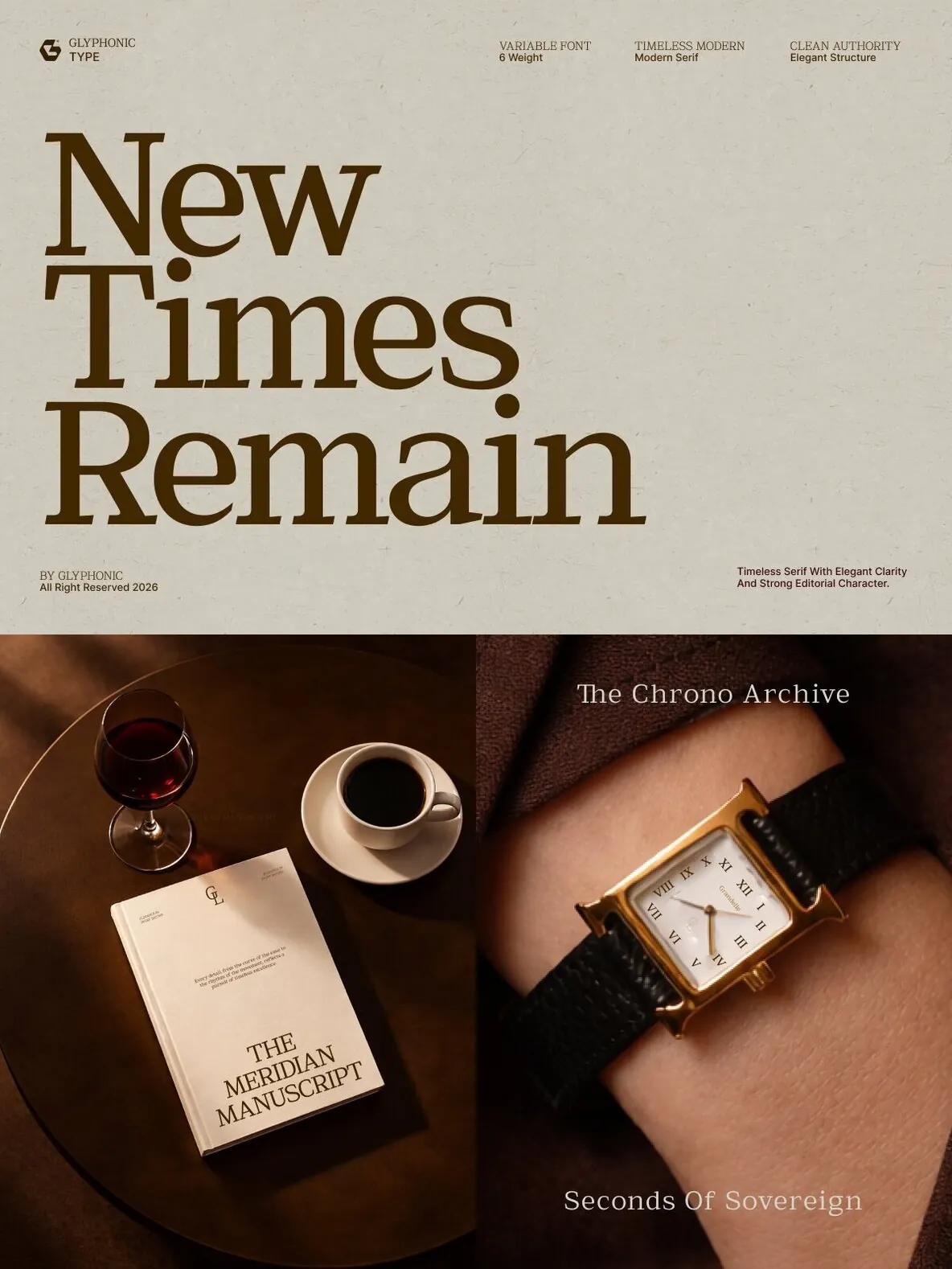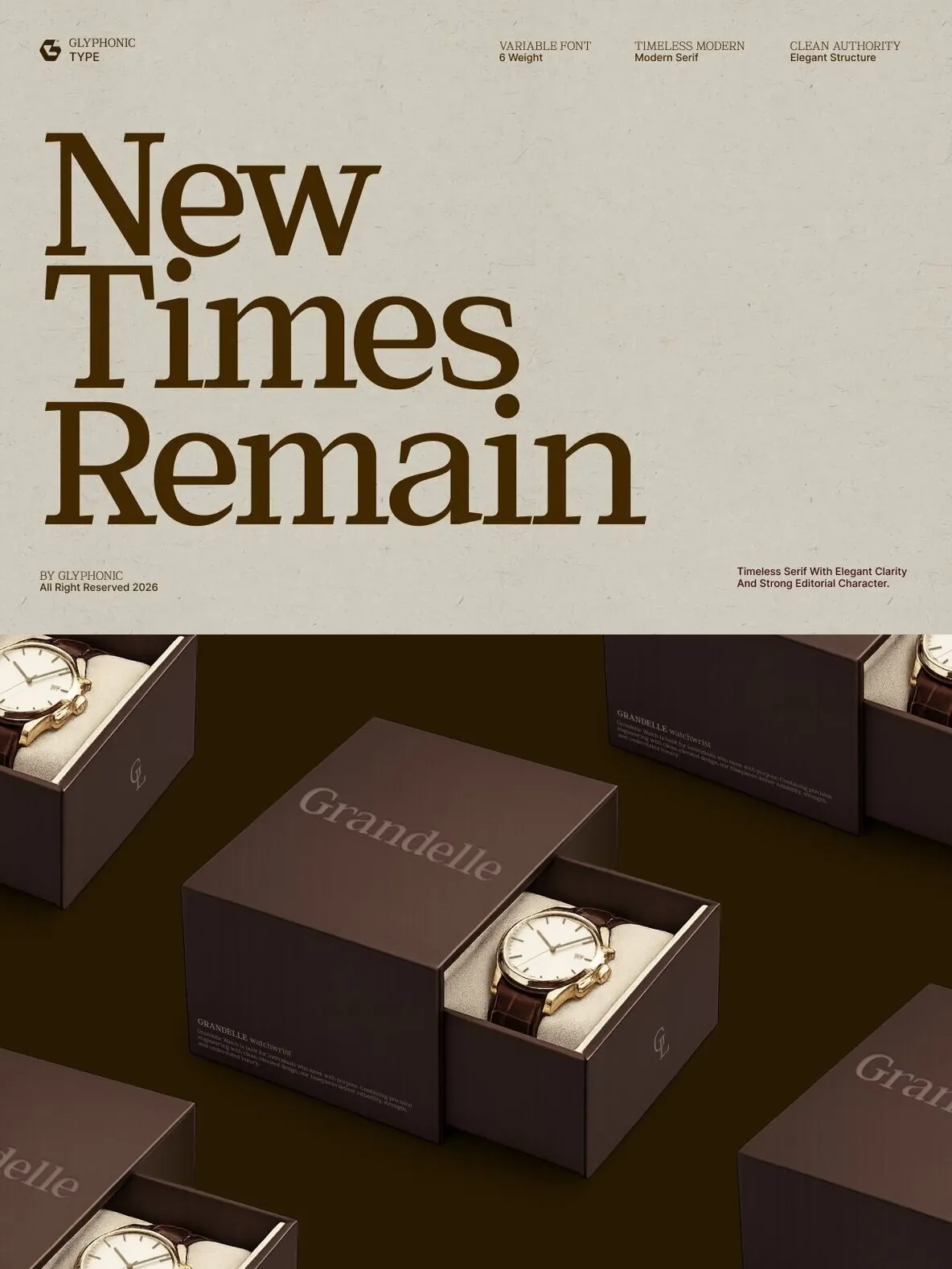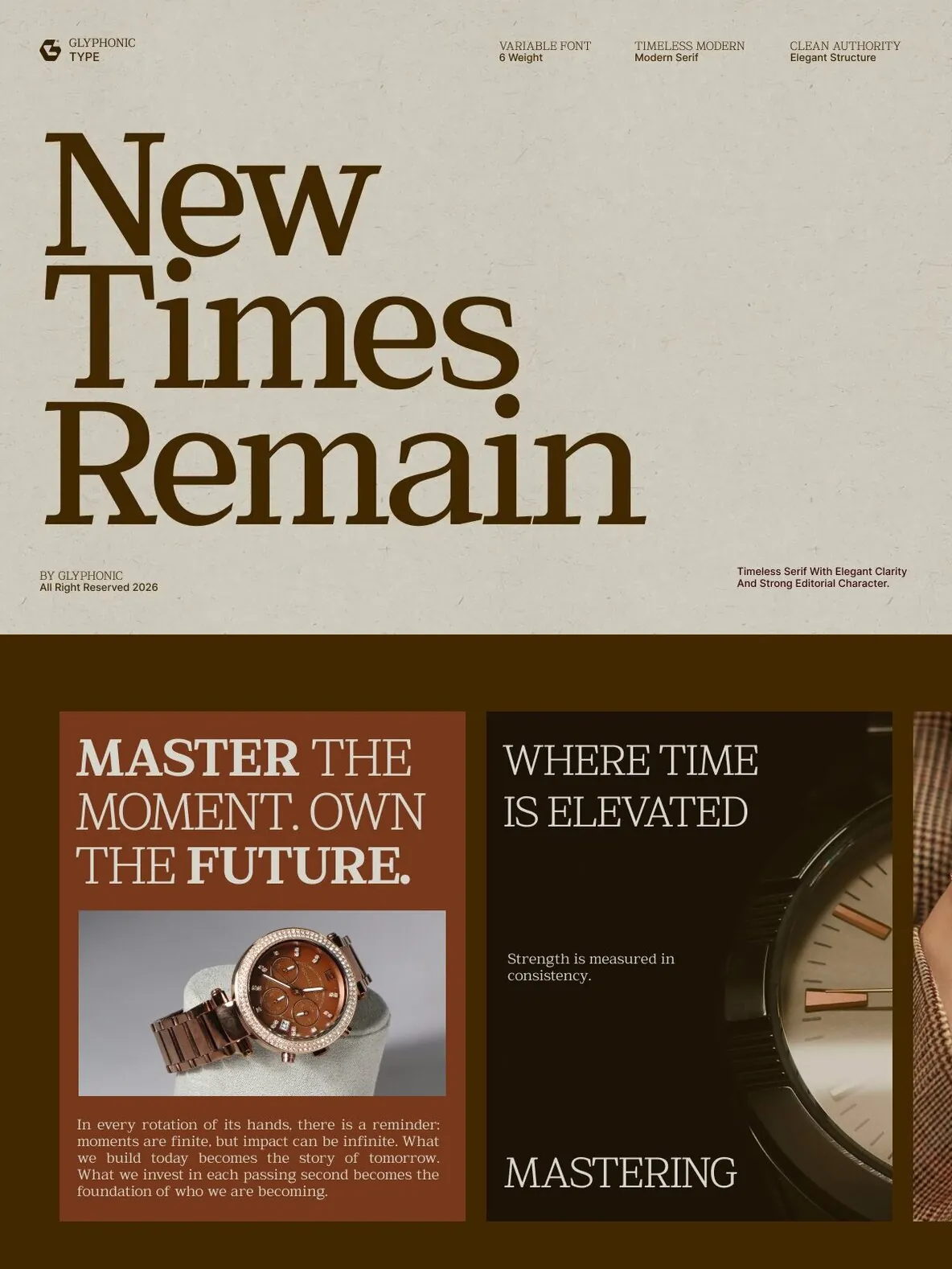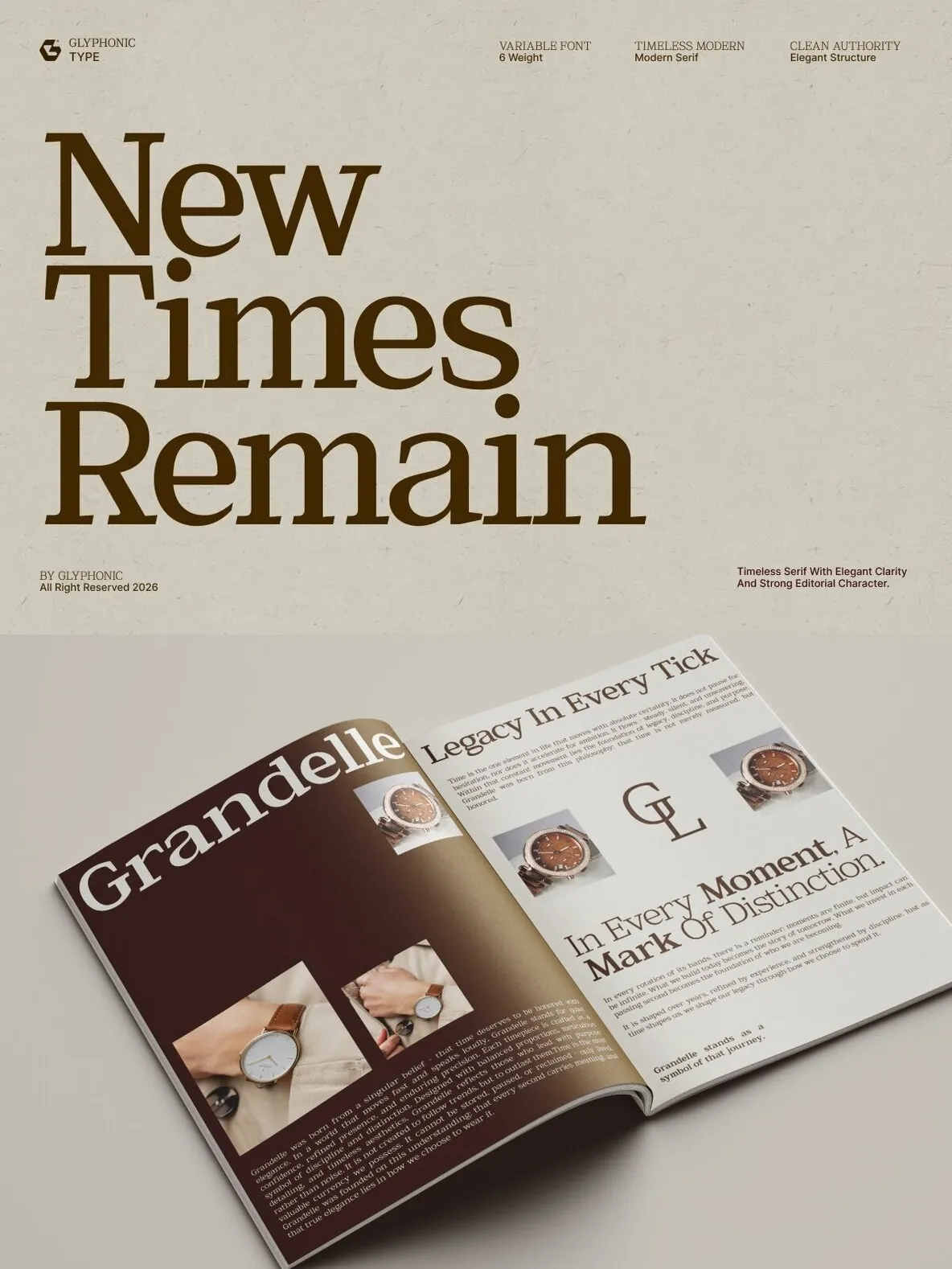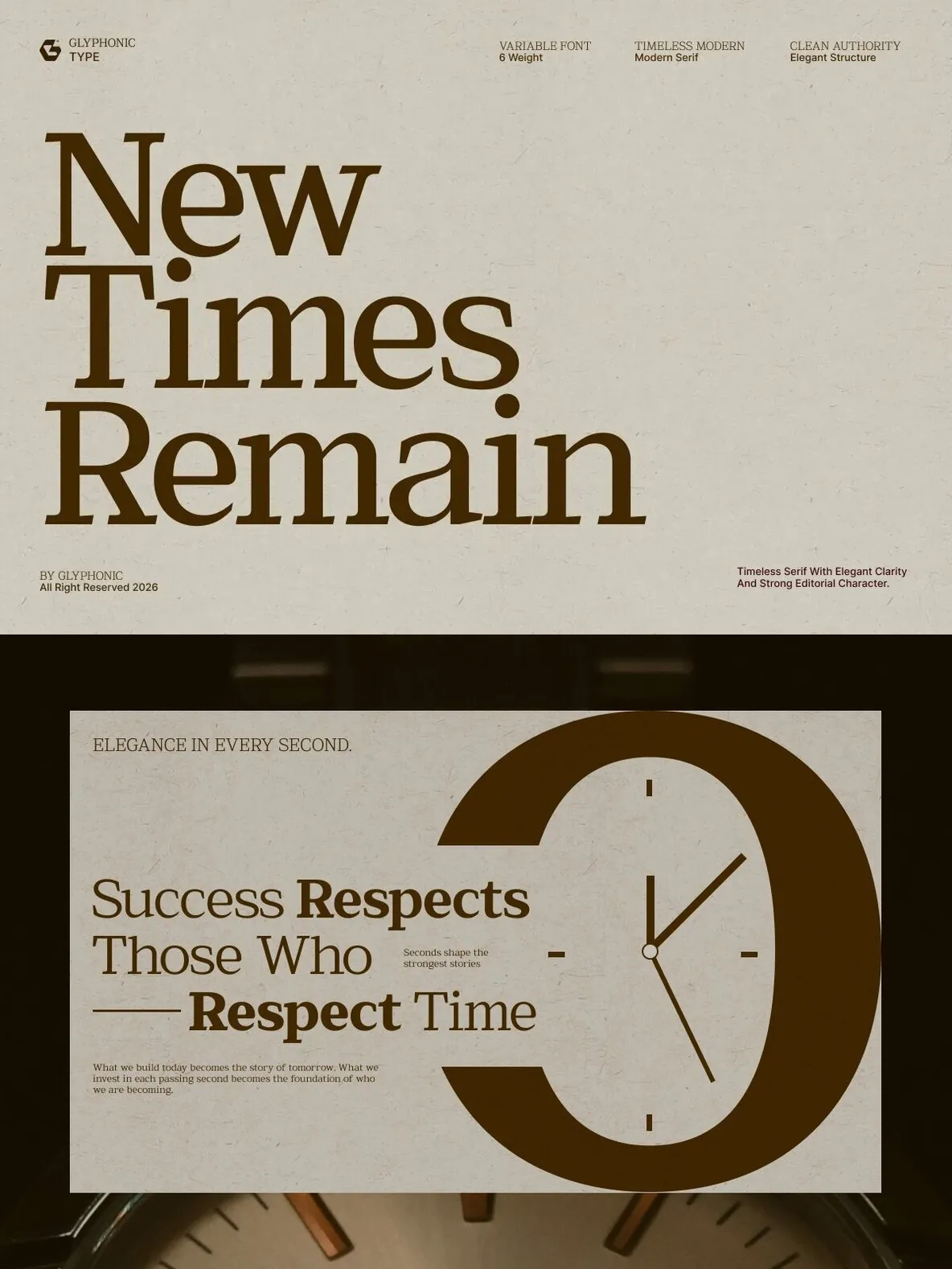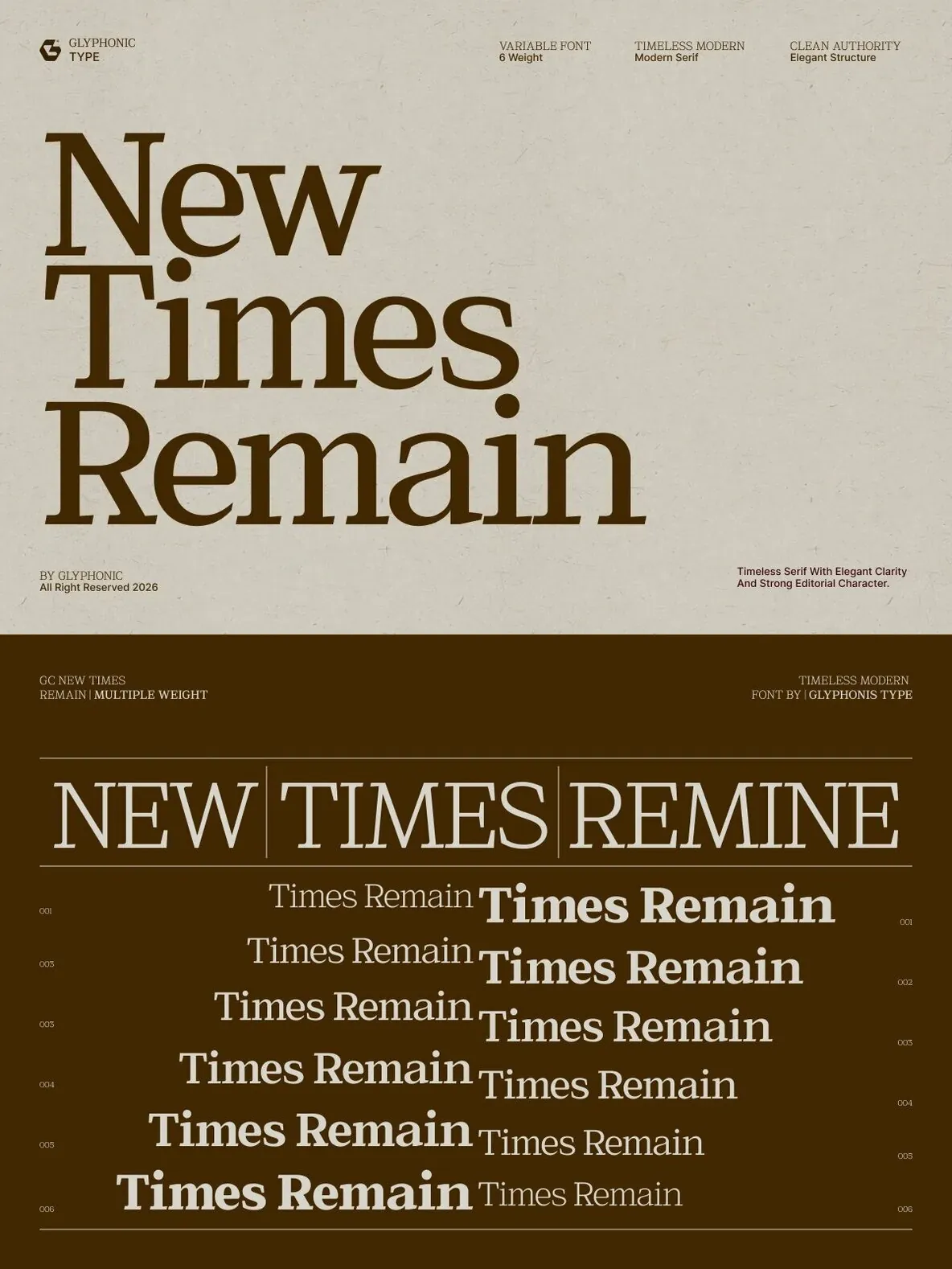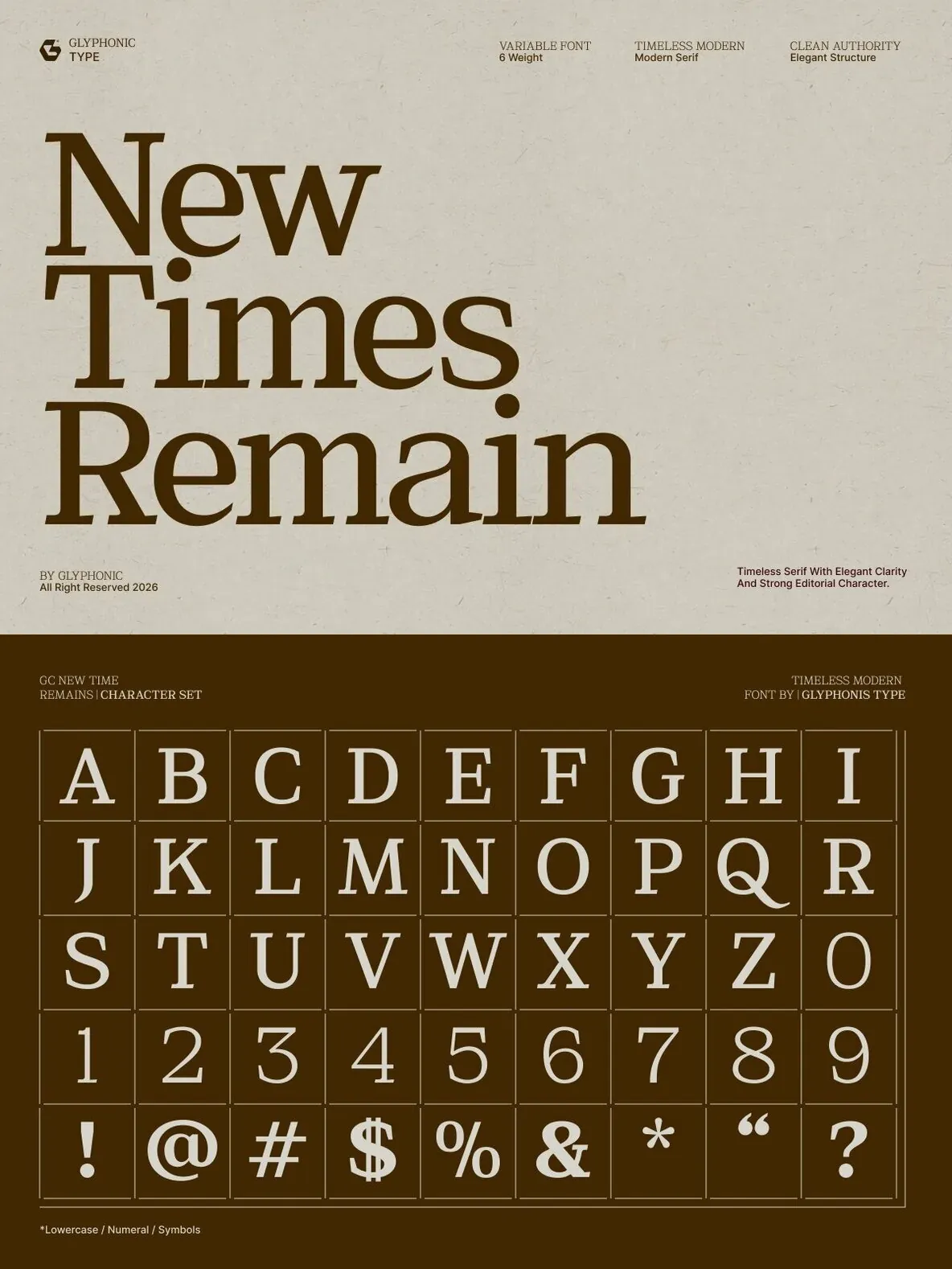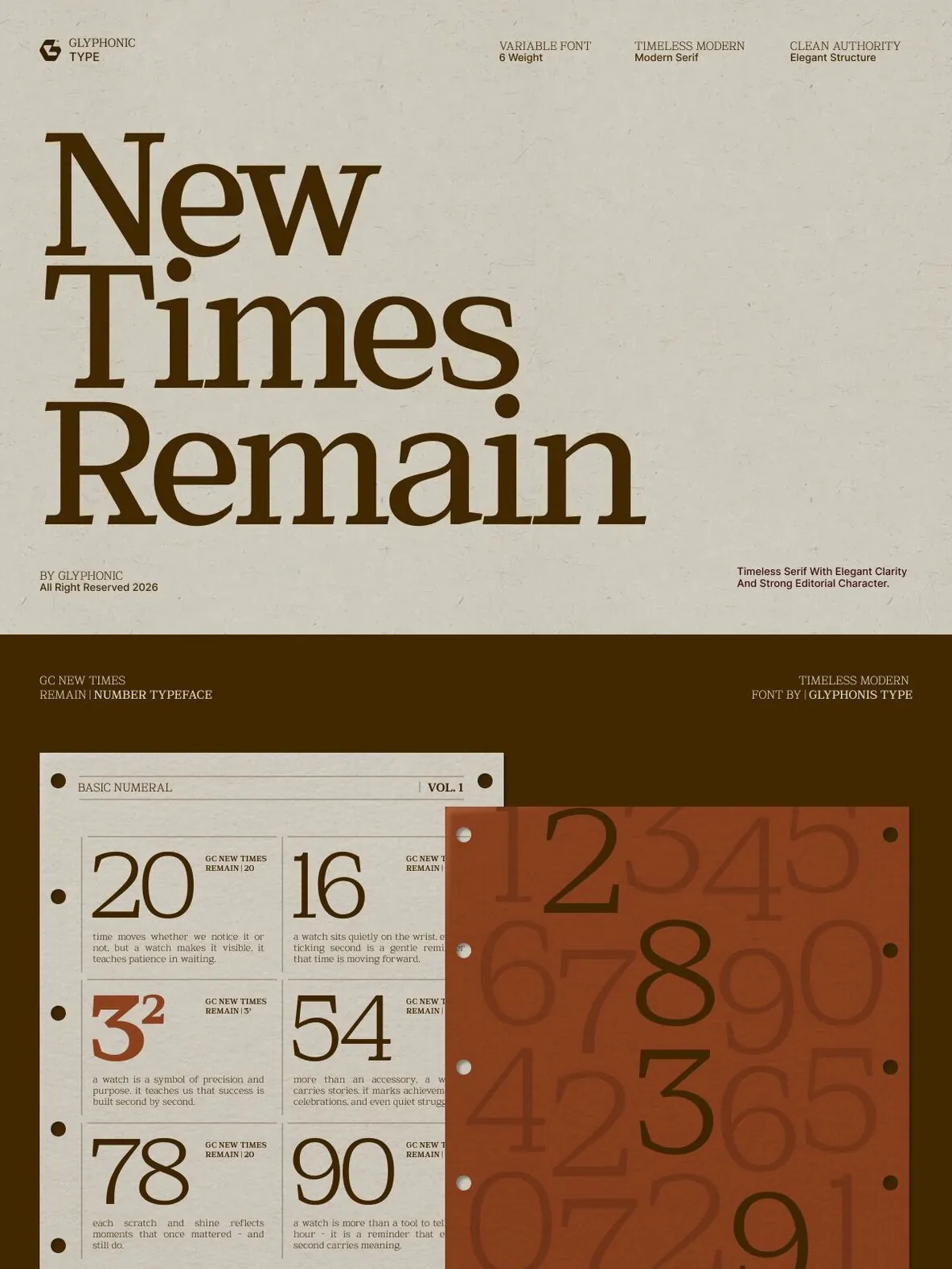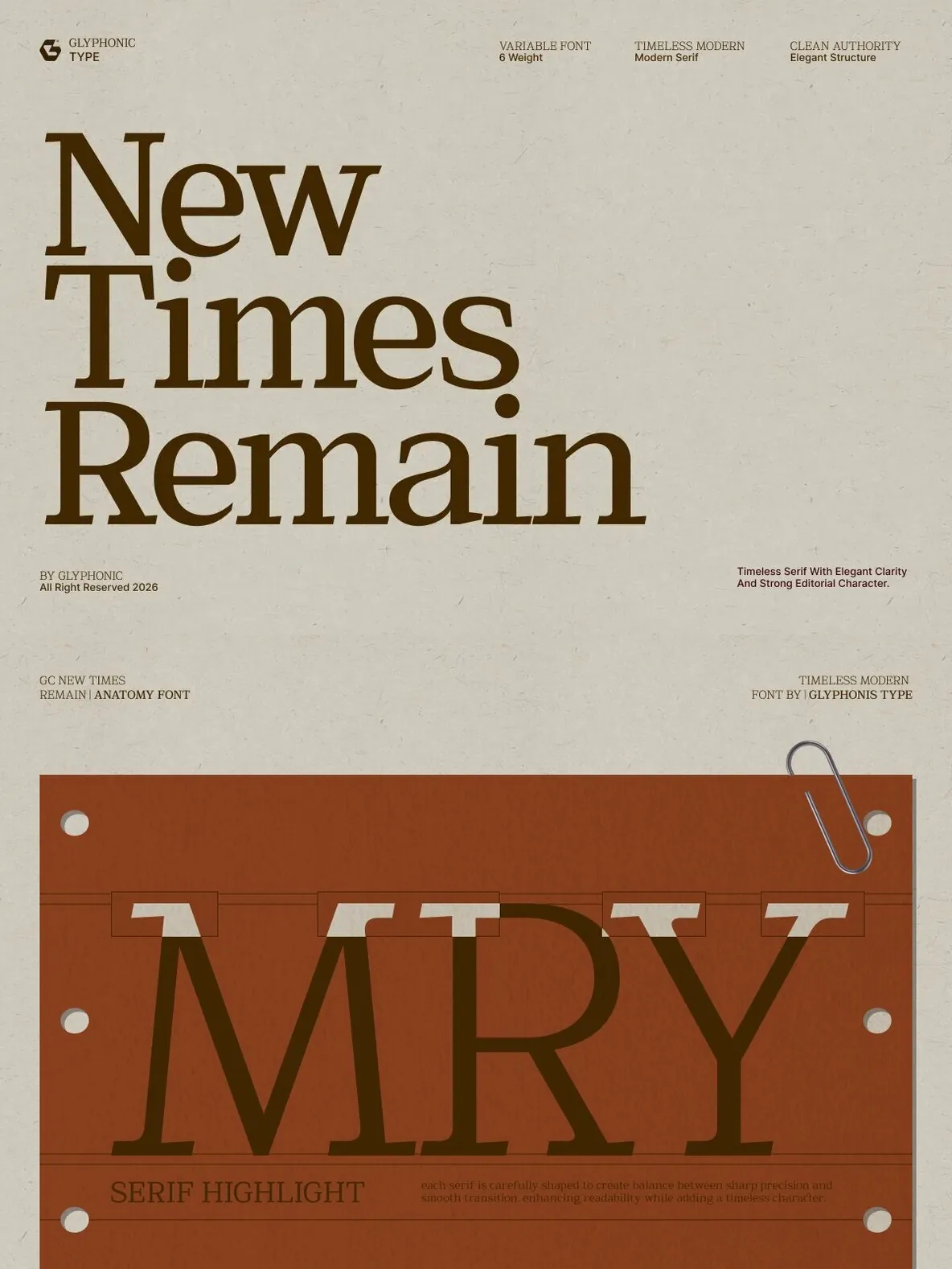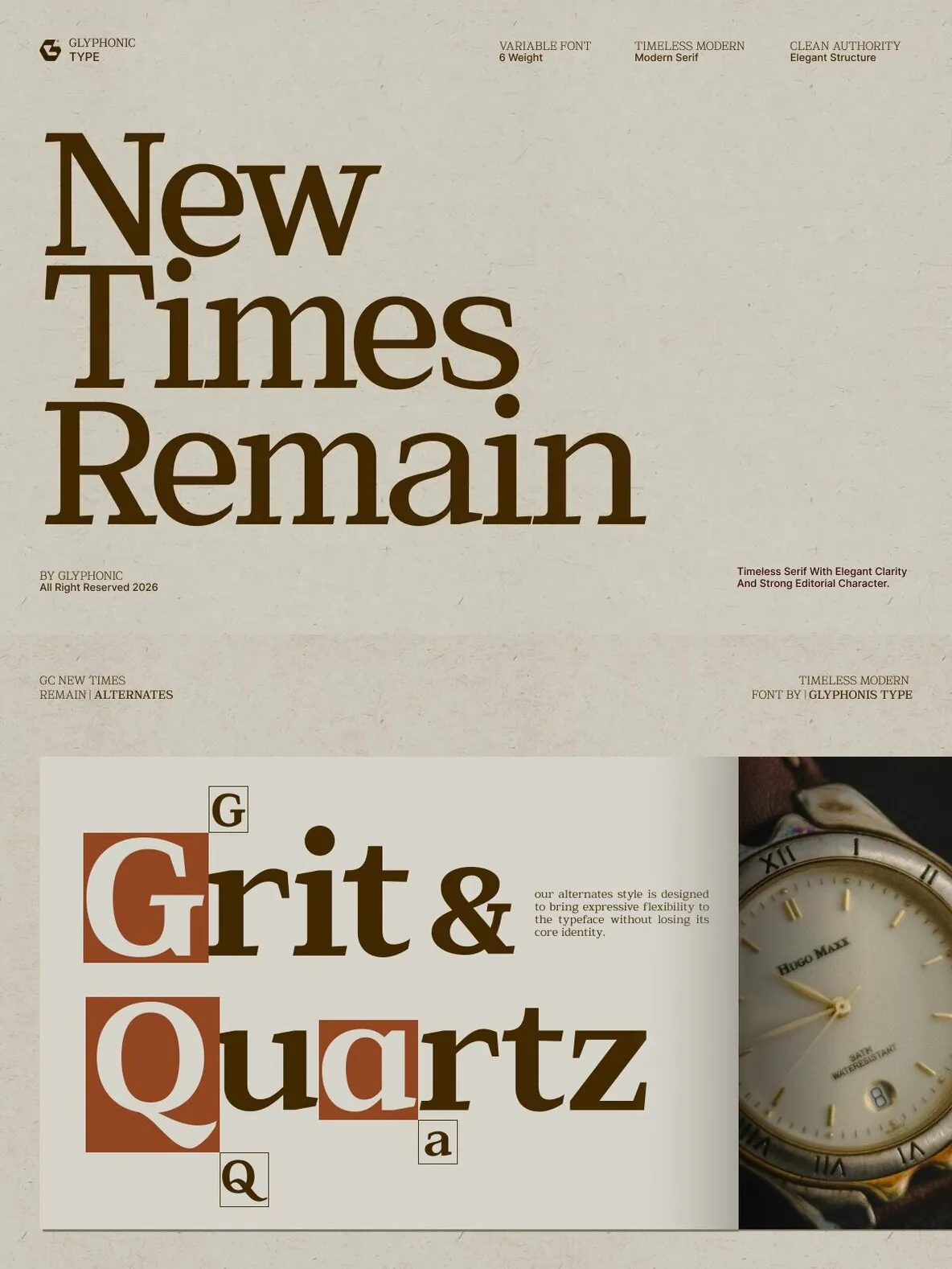
GC New Times Remain — Editorial Authority, Quietly Modern
GC New Times Remain is a timeless modern serif typeface with elegant clarity and a strong editorial presence. Refined proportions, graceful curves, and a confident structure give it a sophisticated typographic voice that reads as both classic and contemporary. Its clean serif construction supports clear typography and steady rhythm across a page or screen.
Balanced letterforms and sharp yet smooth details create authority and visual harmony. Use
GC New Times Remain
for editorial layouts, luxury branding, book covers, packaging, and modern publishing projects where clarity and refinement matter. Crafted for both digital and print media, it blends timeless serif beauty with modern usability for work that needs sophistication and lasting visual impact.
As a variable font with 6 weight options, it gives designers flexible control for hierarchy across headlines, subheadings, and body compositions. From light elegant text to bold statement typography, it keeps consistency and readability throughout.
Variable Font (6 Weight Options)
Modern Serif Construction
Uppercase & Lowercase
Numbers & Punctuation
Elegant Editorial Character
Clean & Balanced Letterforms
Multilingual Support (170+ Languages)